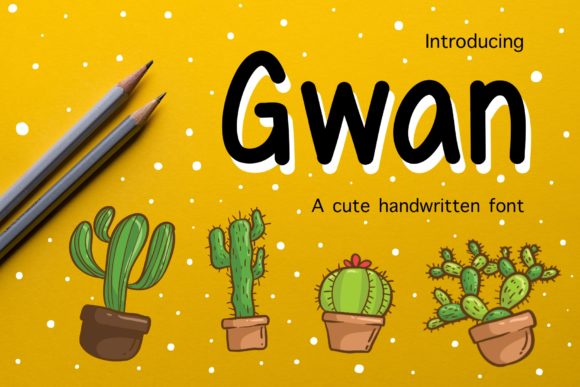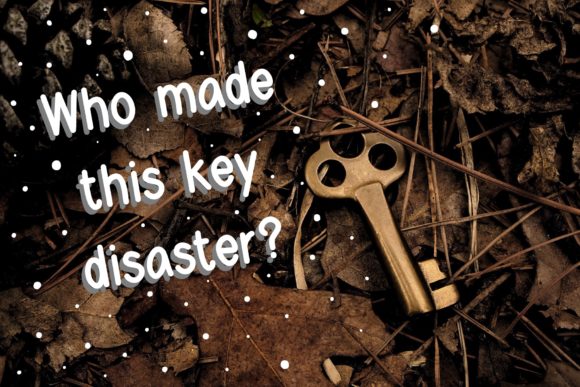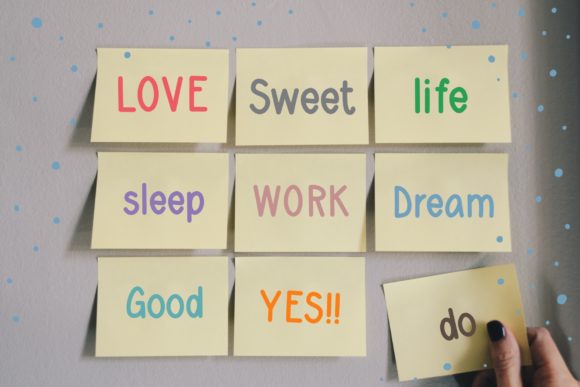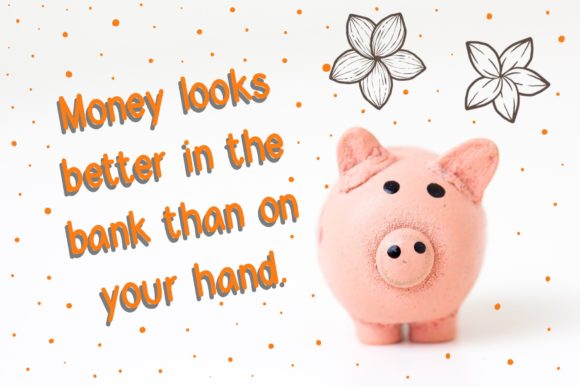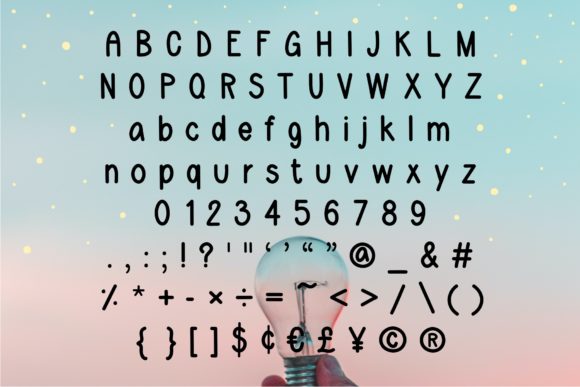
About Gwan Font
Gwan is a sweet and friendly handwritten font. Its natural and unique style makes it incredibly fitting to a large pool of designs. The only limit is your imagination!